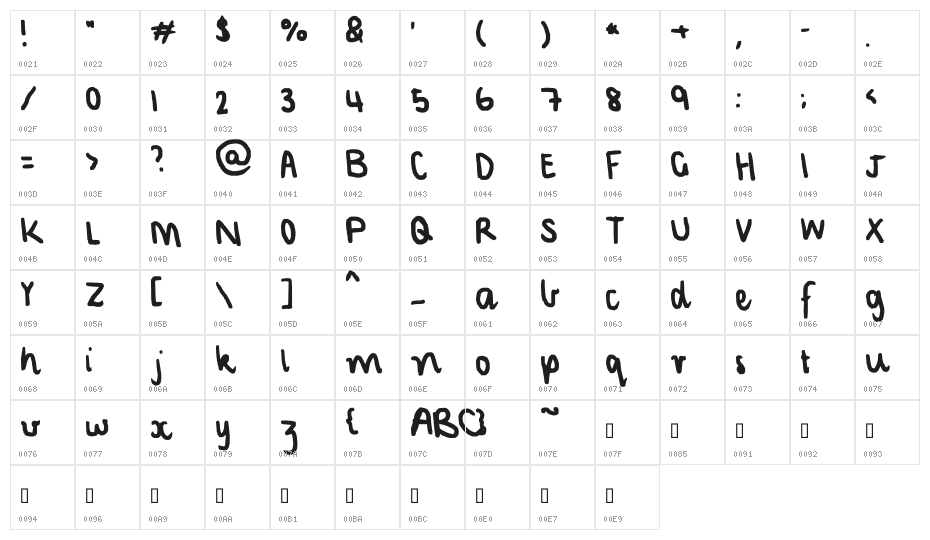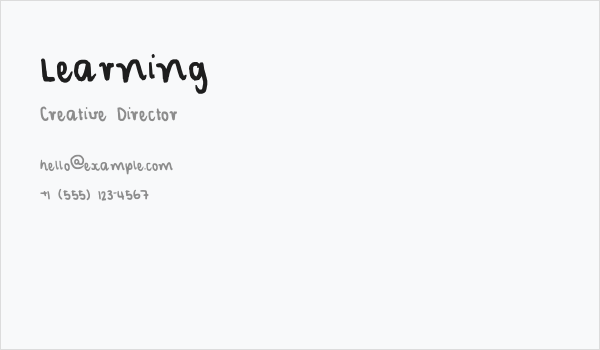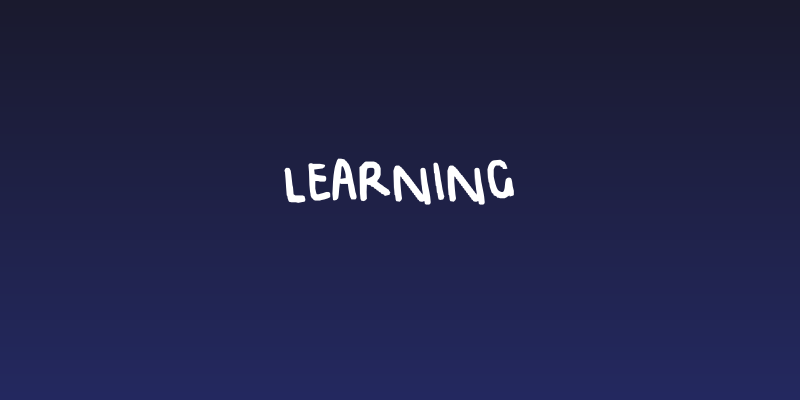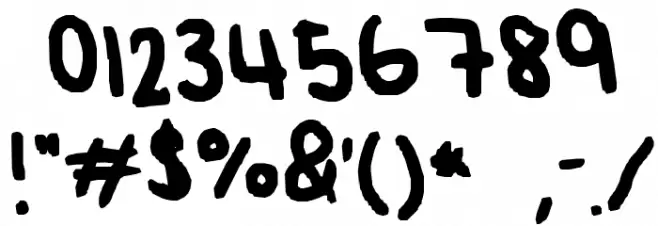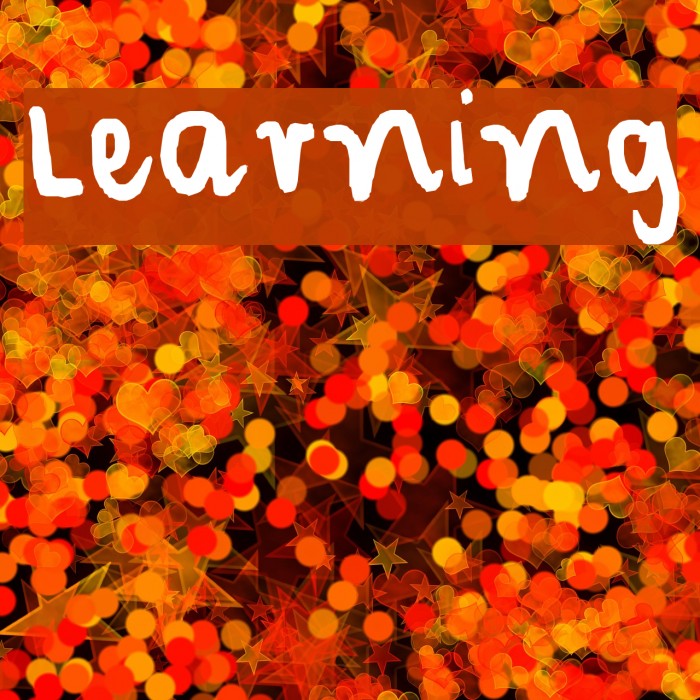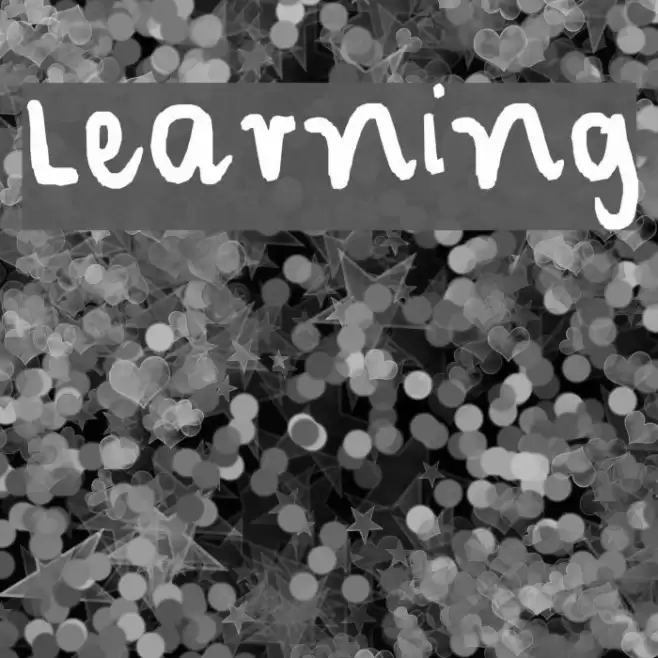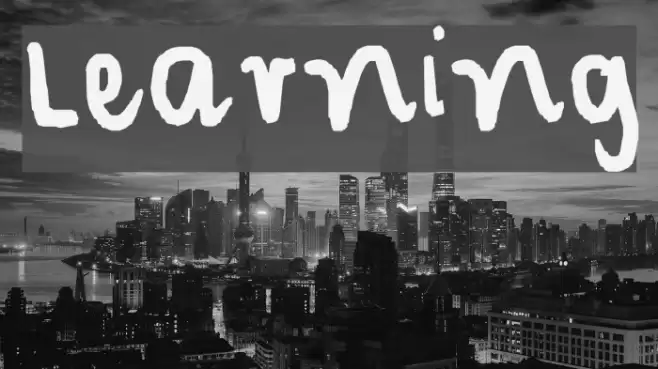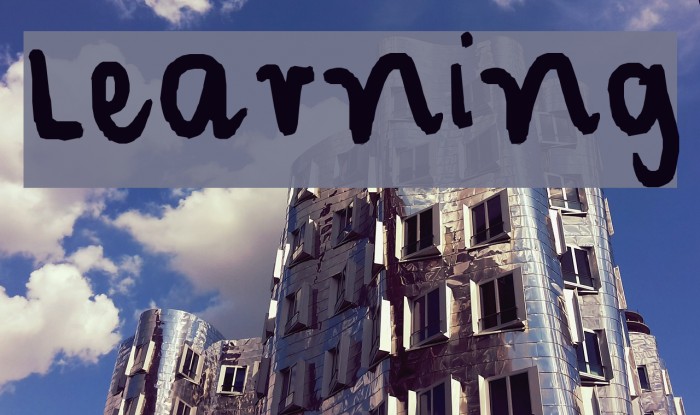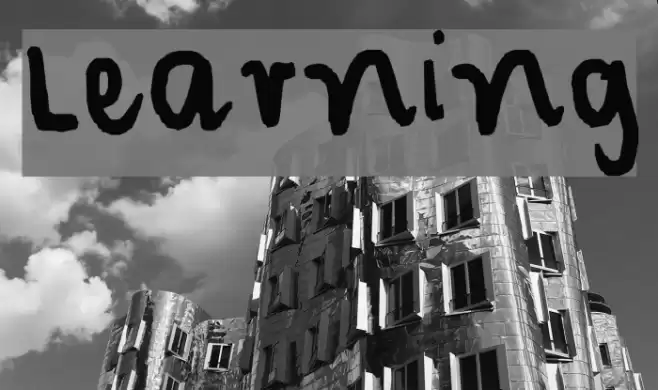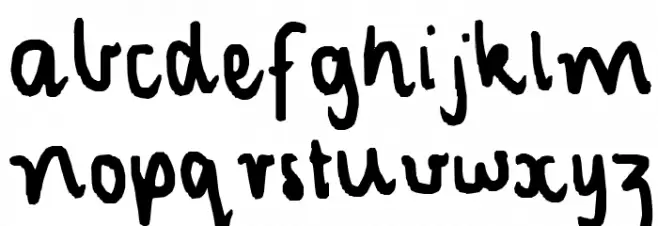
Learning Font
Learning Description
This font features a playful and informal handwritten style, characterized by its bold and slightly irregular strokes. The letters have a casual, friendly appearance, with rounded edges and a consistent flow that mimics natural handwriting. The uppercase and lowercase letters maintain a cohesive look, while the numbers and special characters complement the overall style. The font's organic feel makes it suitable for projects that aim to convey warmth and approachability.
| Overall Style | Casual, Playful |
| Use Case | Logos, Headlines, Informal Text |
| Proposed Projects | Ideal for greeting cards, children's books, casual branding, and social media graphics. |